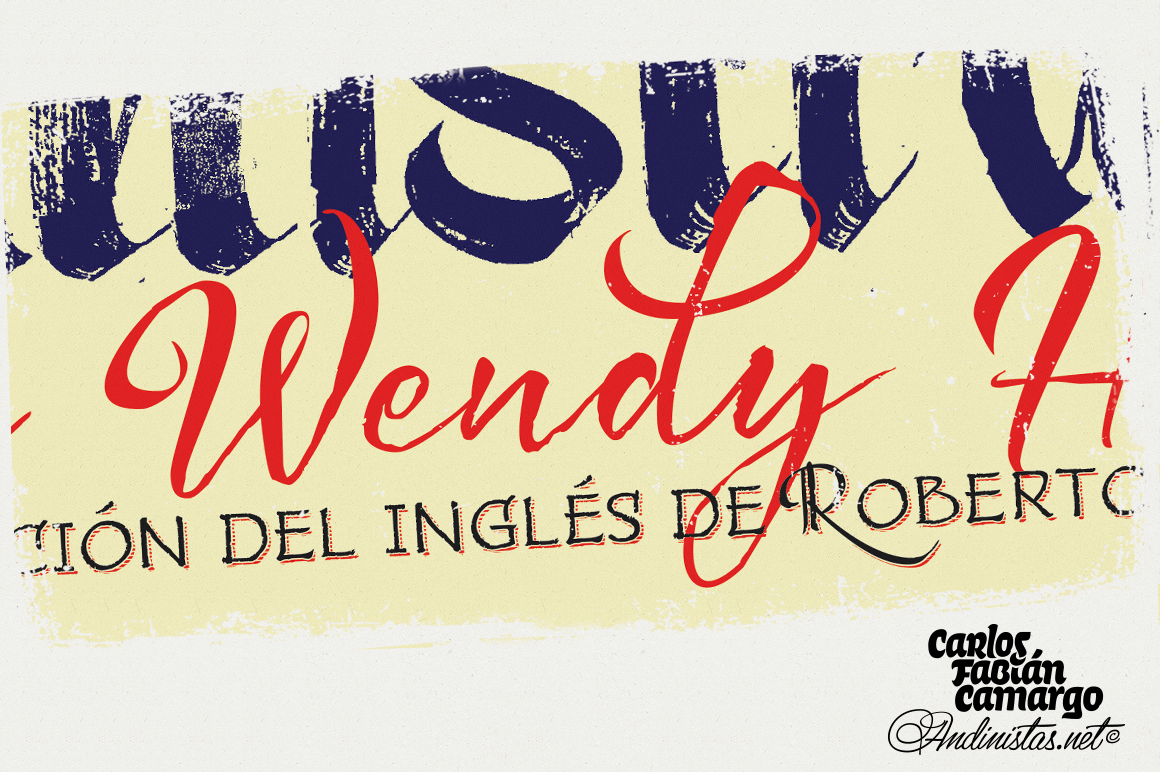
Bemol Type Family / 8 fonts
Bemol is a typographic family designed by Carlos Fabian Camargo. This family of fonts features craftsman style, worn edges and a highly spontaneous look. Its expressive possibilities will help you design striking words and phrases in letters that appear to be handwritten on textured paper. Bemol OpenType Script has features that amplify your handmade irregularity in more than 1300 characters.